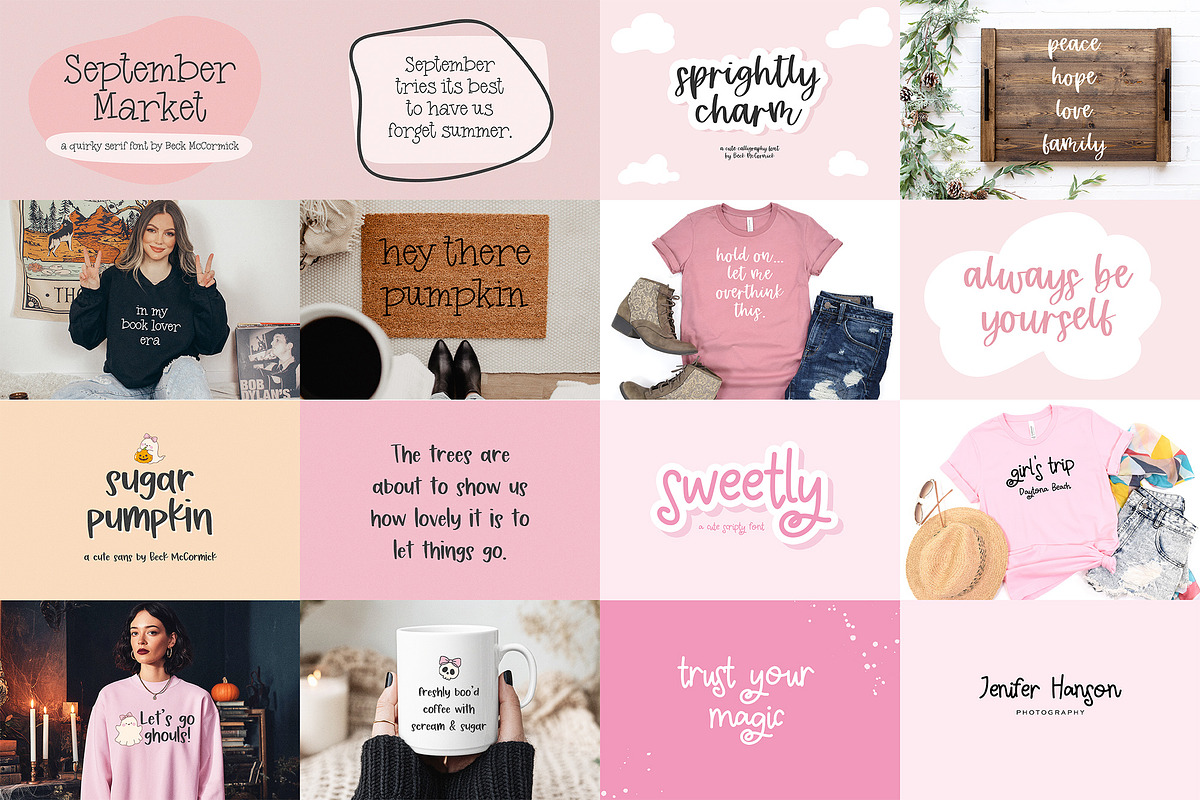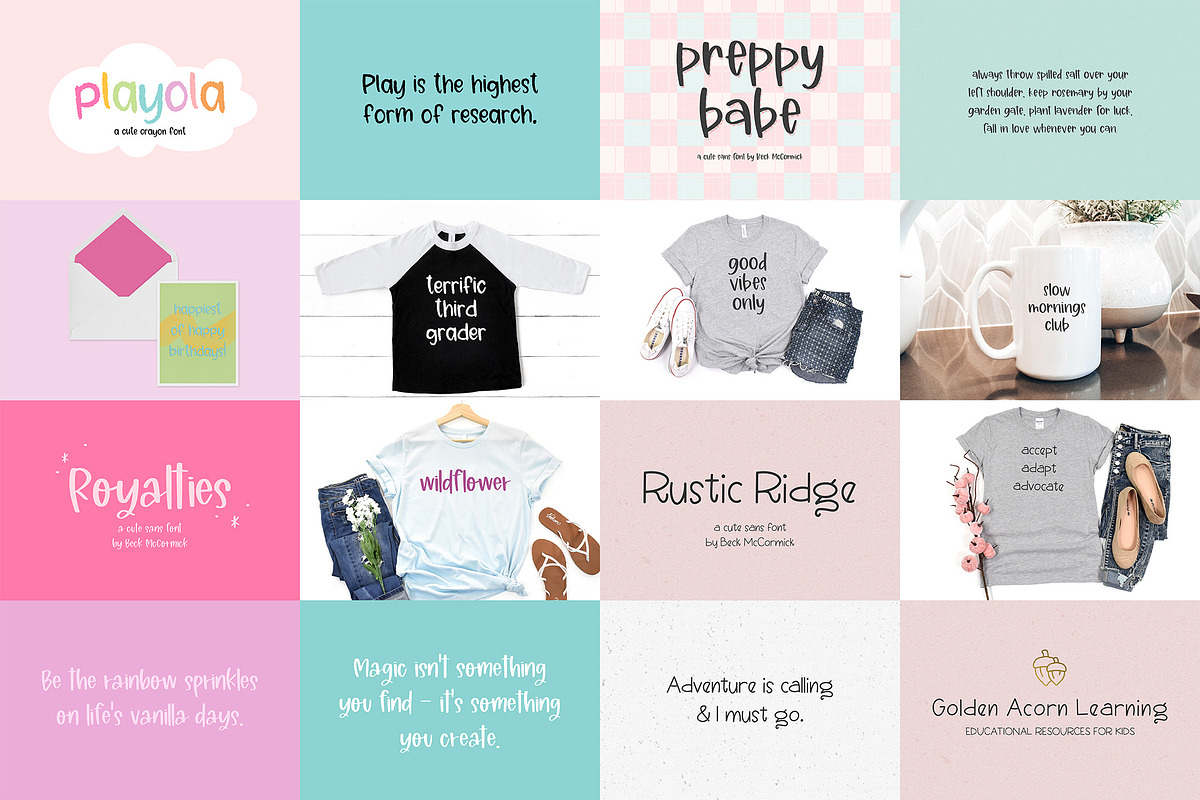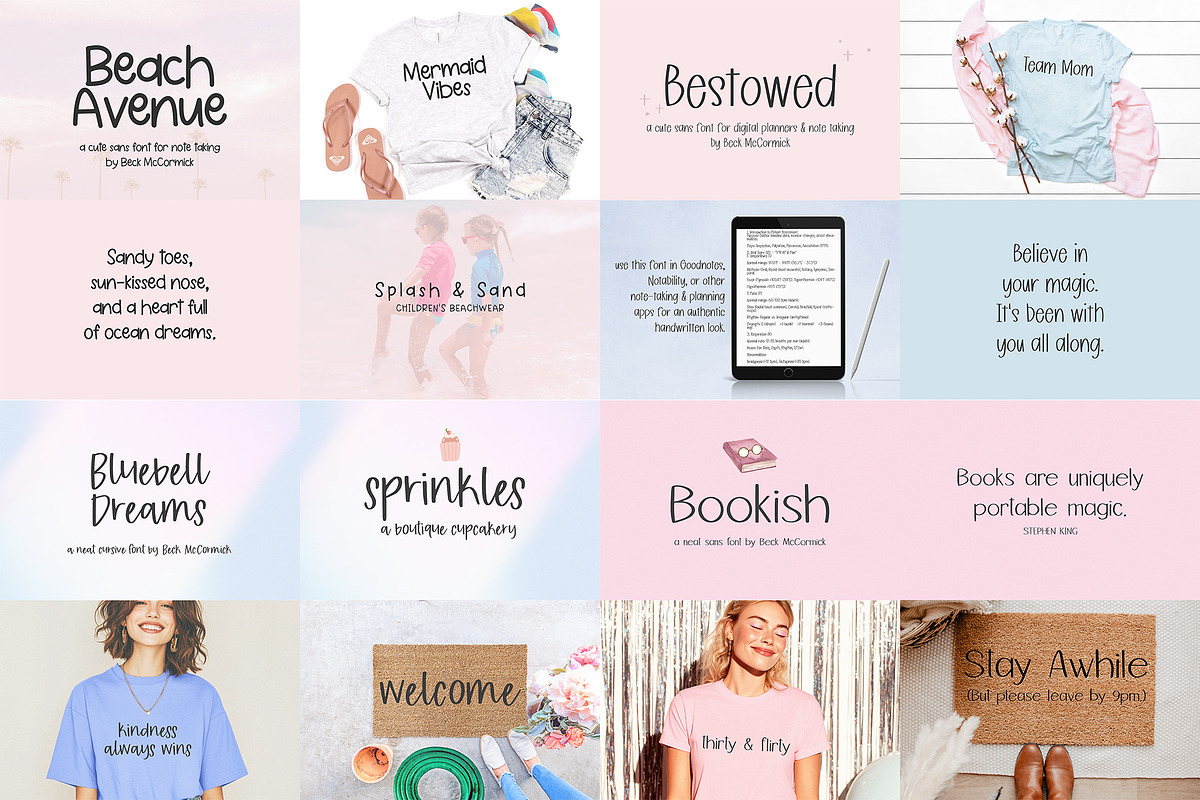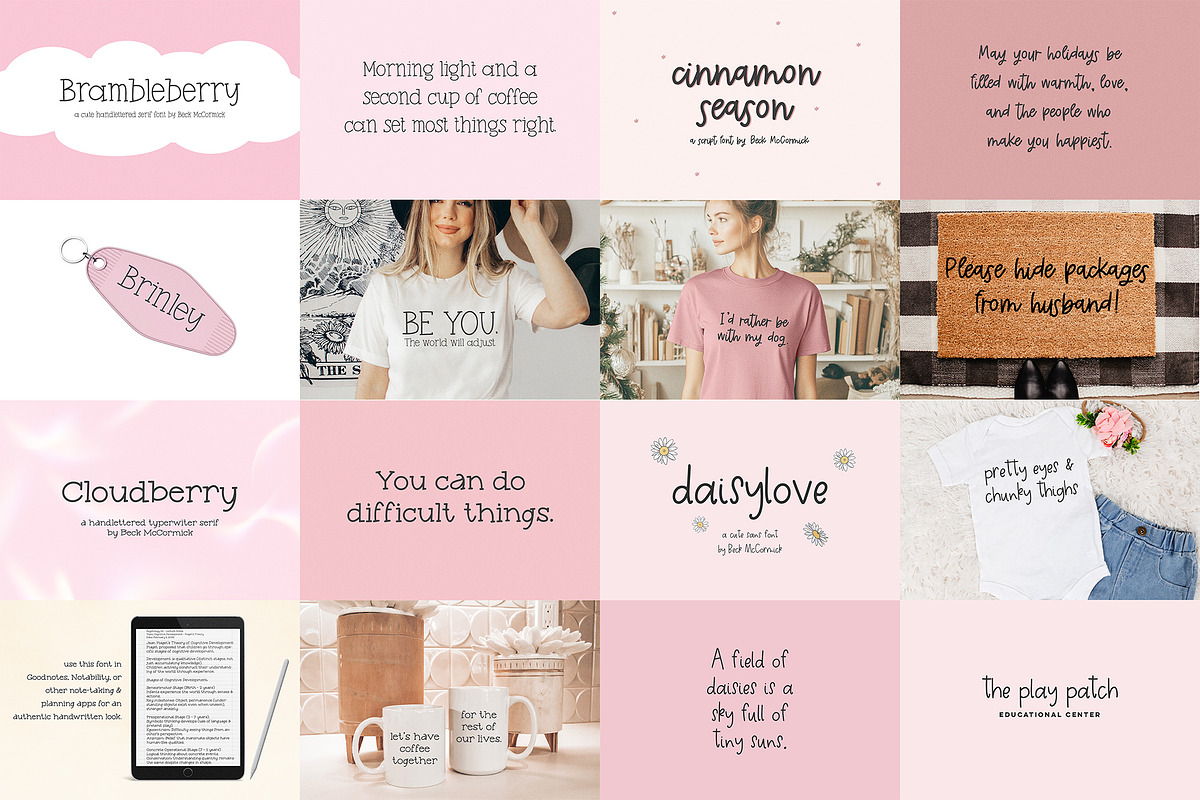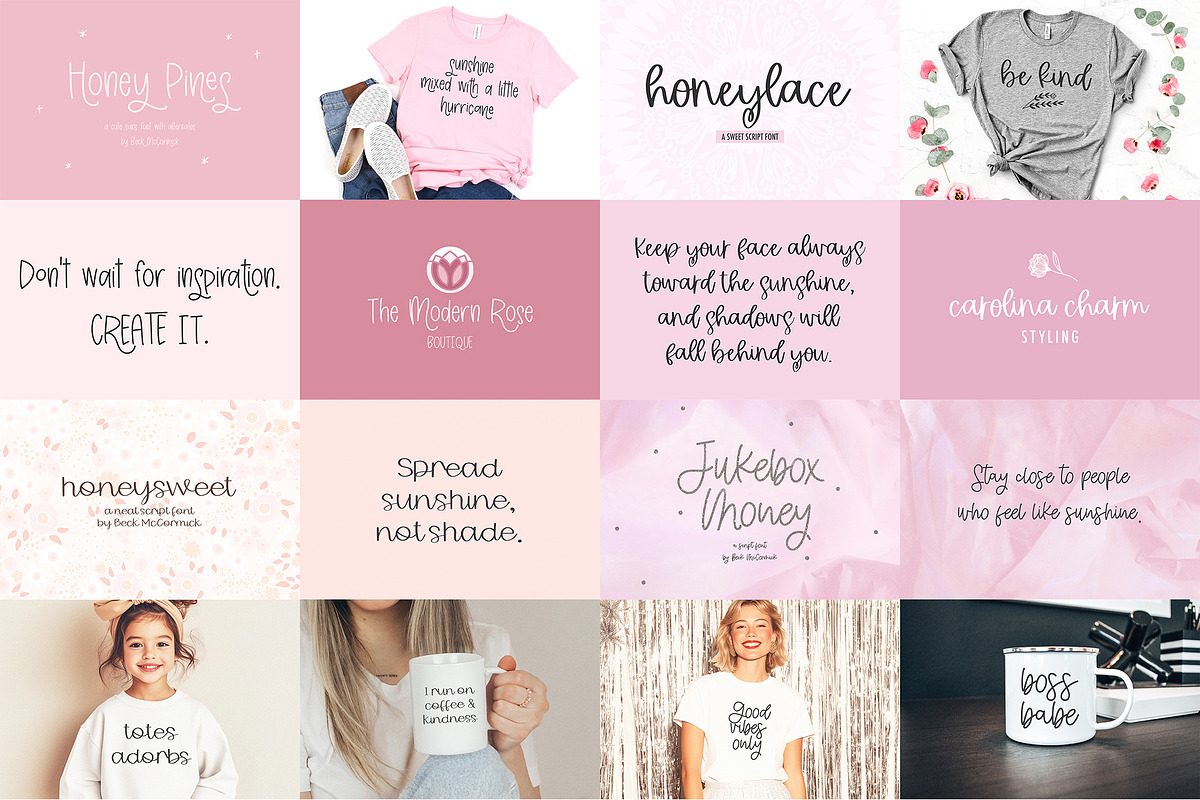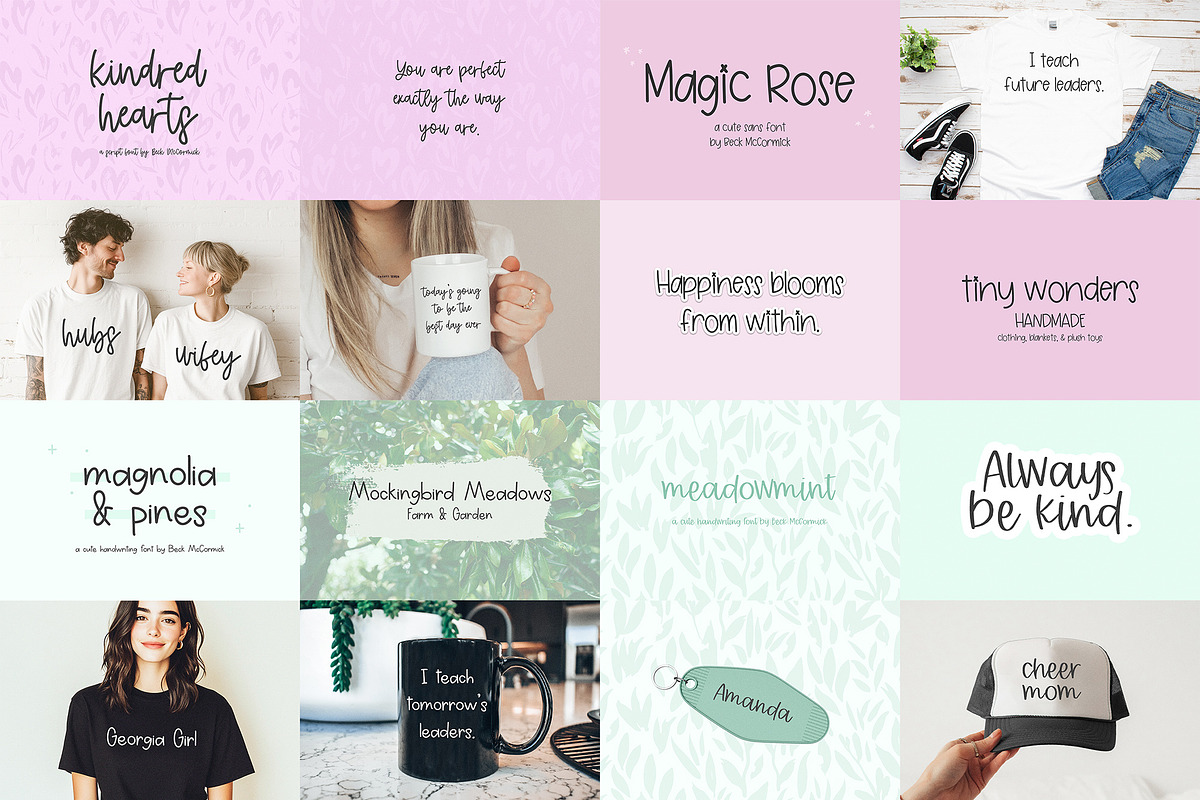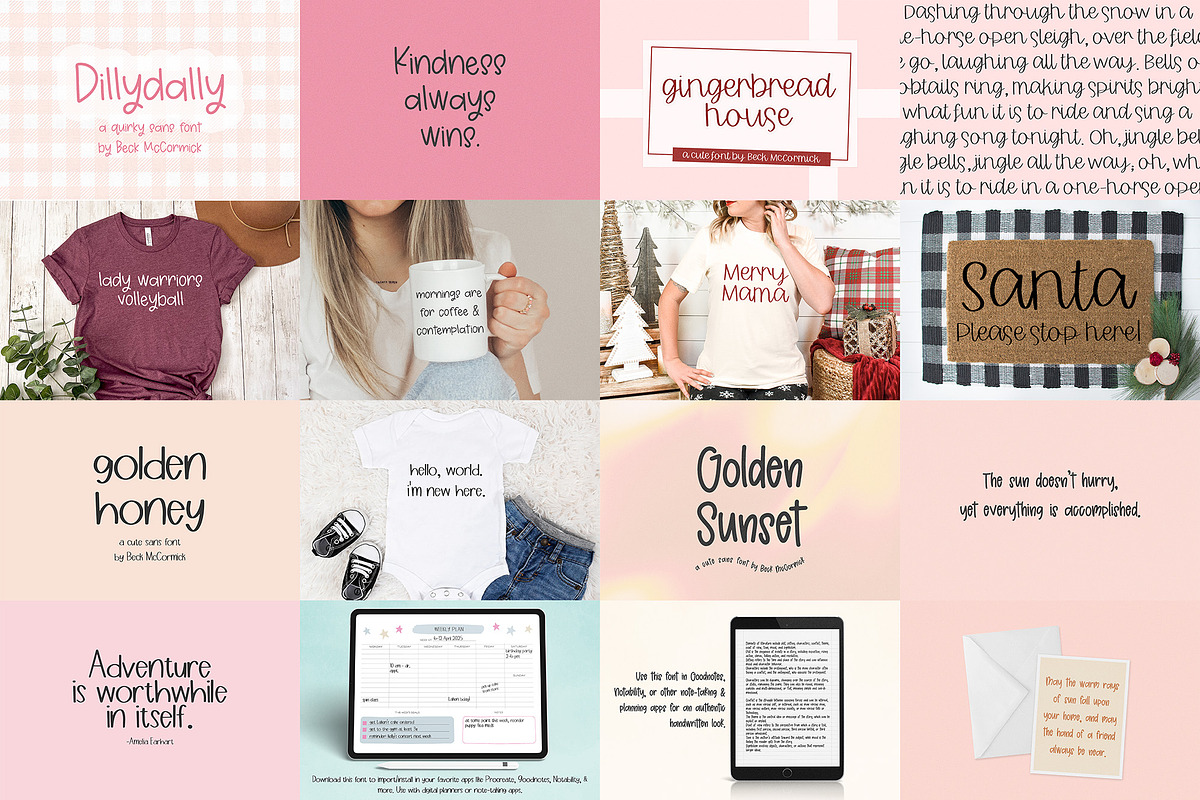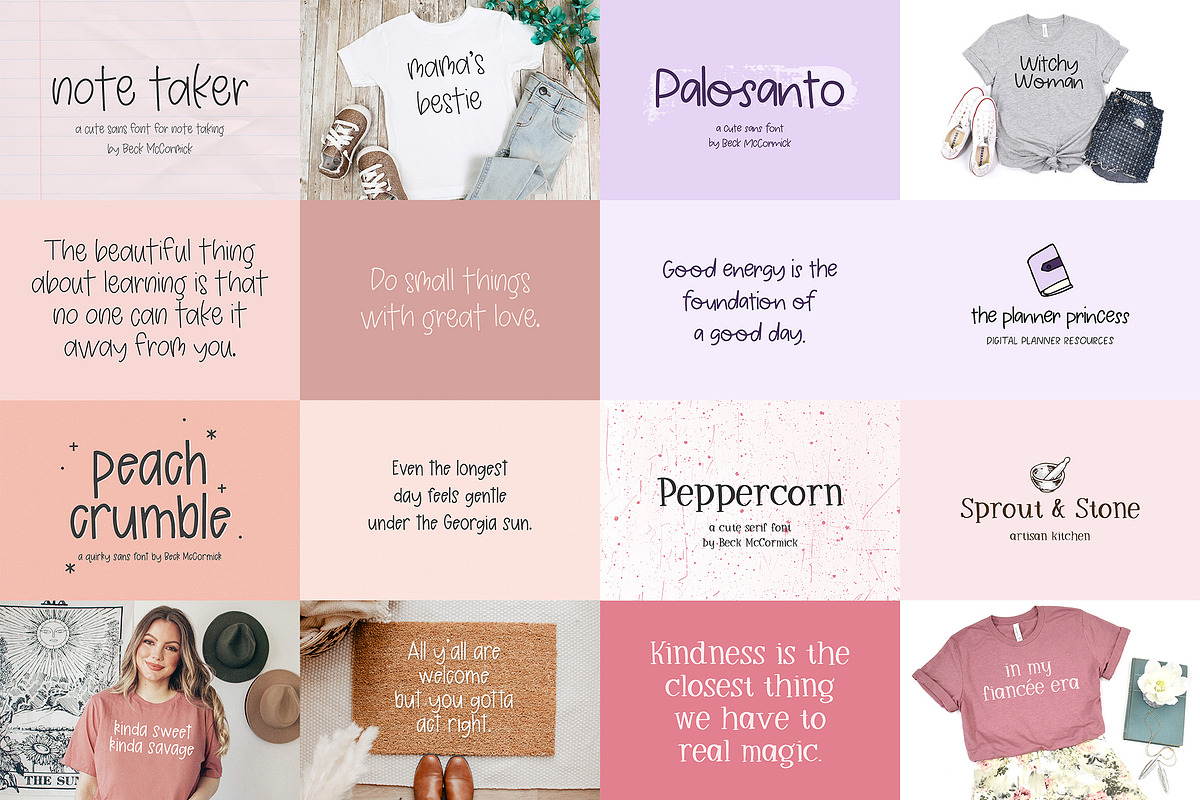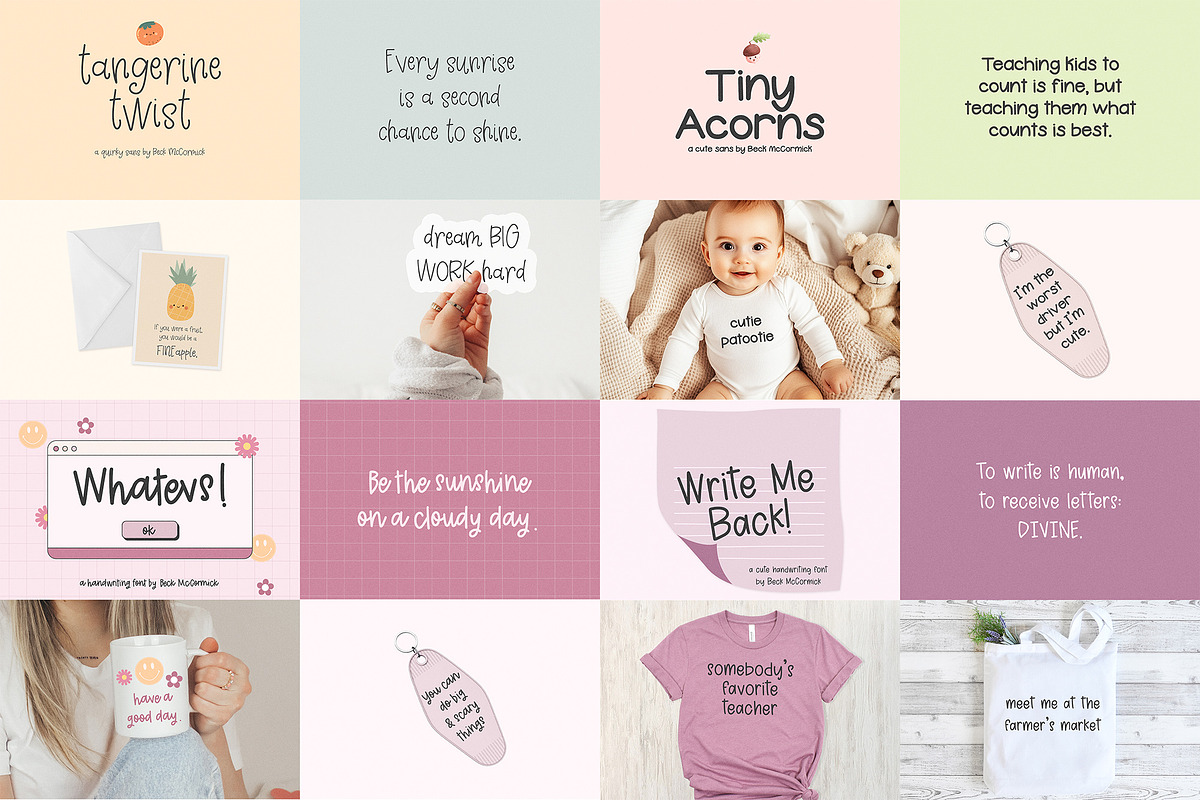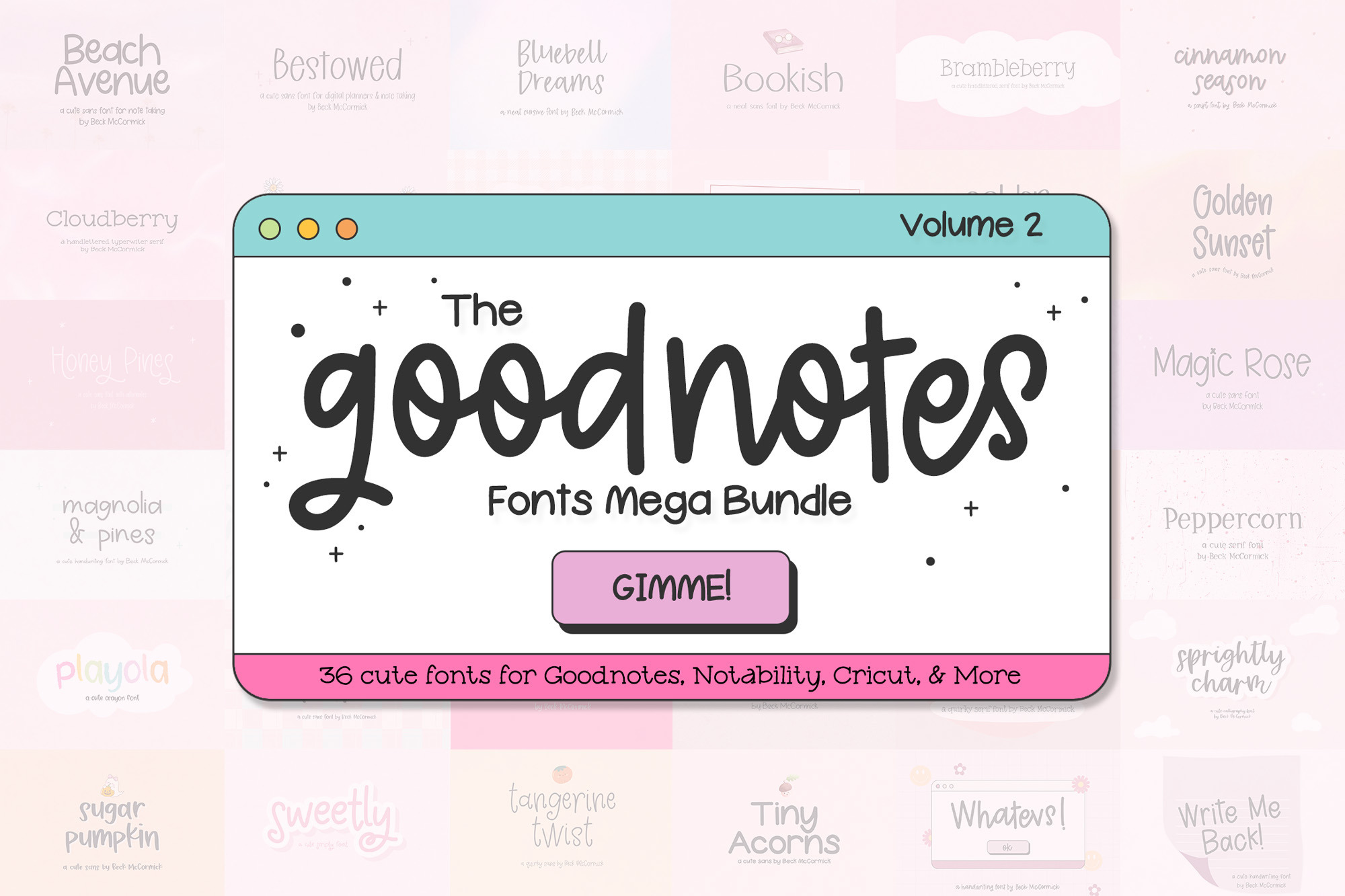
Goodnotes Font Bundle Volume 2
Start your year organized & inspired with 36 Goodnotes fonts! Perfect for digital planning, Notability, Canva, Procreate, Cricut & more.
This bestselling collection includes 36 premium planner fonts designed to elevate your digital notes, planners, and creative projects. Whether you’re organizing your life in Goodnotes, creating lesson plans, or designing in Procreate, Canva, or Photoshop, these fonts are the perfect fit for every digital creator.
💕 What’s Included:
- 36 bestselling handwriting & cursive fonts
- Mix of neat, legible handwriting fonts and fun, playful cursive styles
- Perfect for digital planning, note-taking, journaling, classroom materials, and small business design
🌟 This Goodnotes Font Bundle is Perfect For:
- Goodnotes planners & digital notebooks
- Notability notes or study templates
- Canva graphics, brand design & marketing
- Cricut / Silhouette crafting projects or creating SVG designs for sale
- Social media posts, t-shirt design, and more!